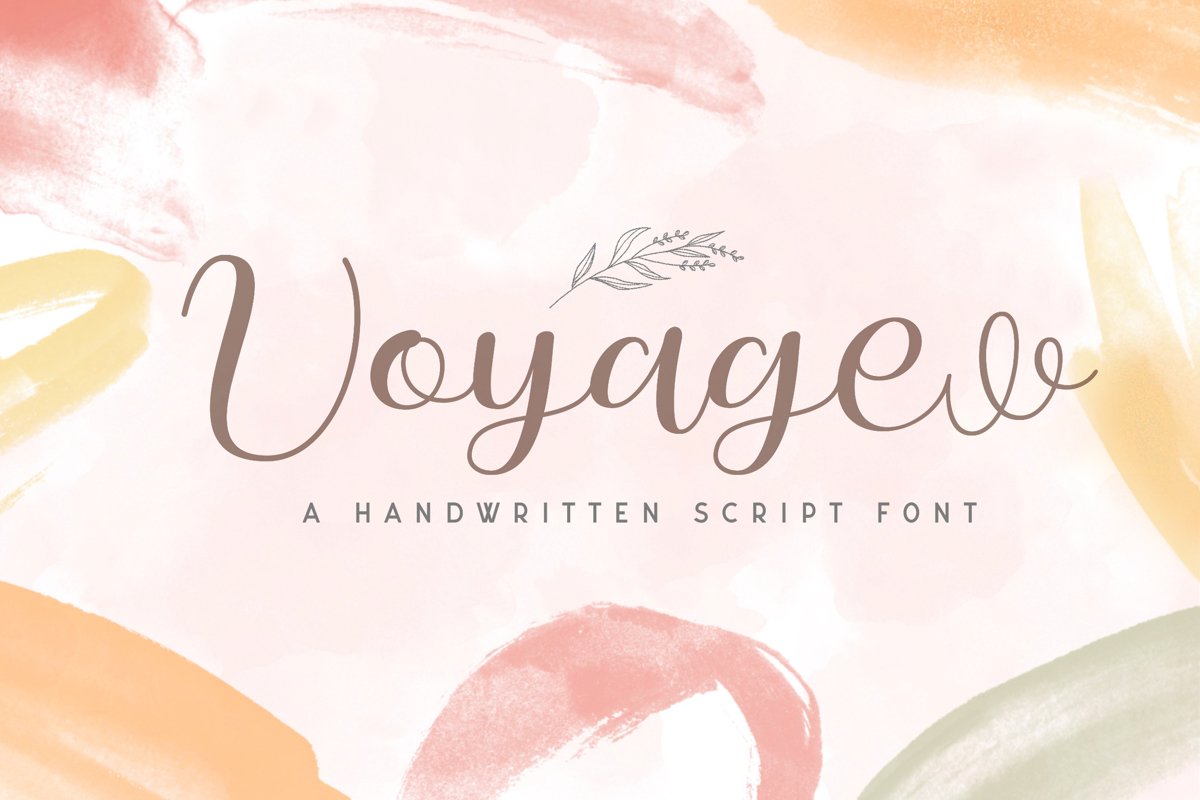
Voyage
Voyage is a Script typeface. Perfect for display, quotes, logo, logotype, merchandise, packaging, floral needs, wedding needs, signature, business card, header, tittle and many more.